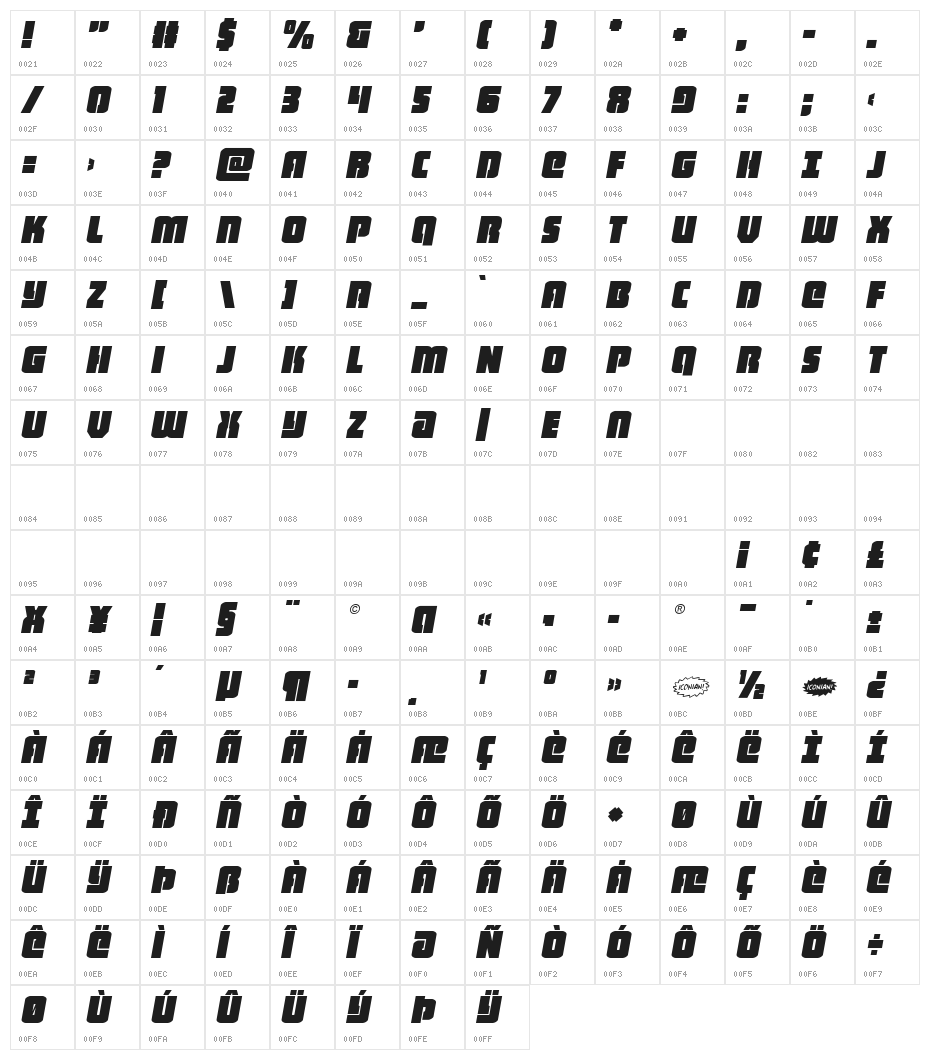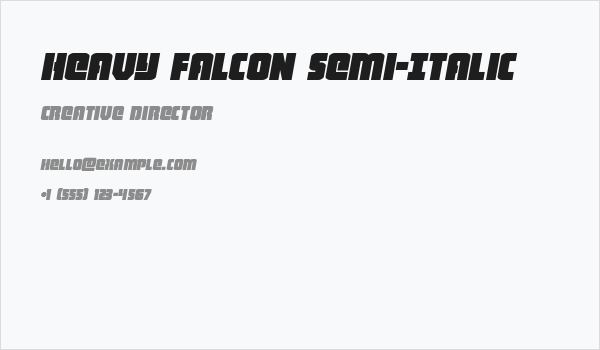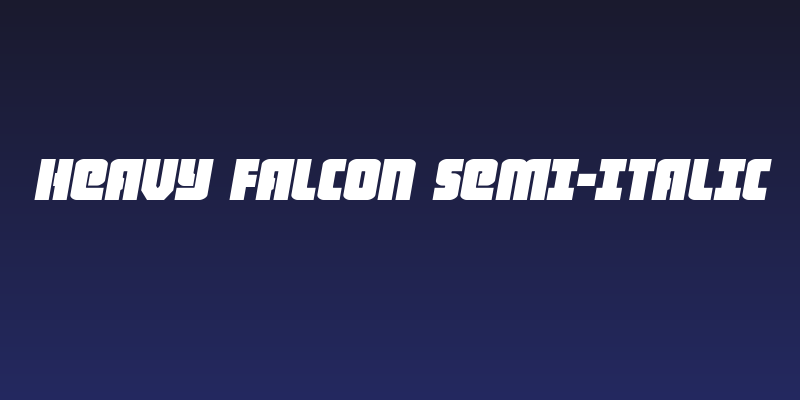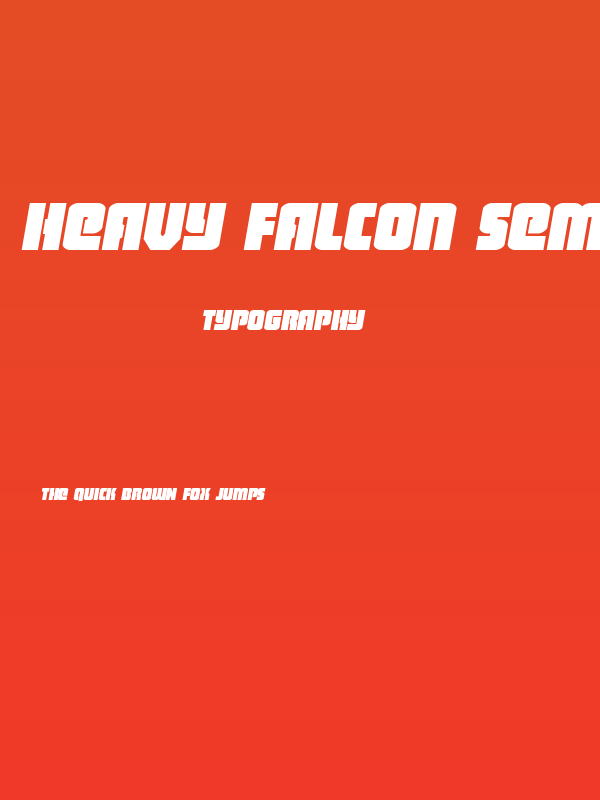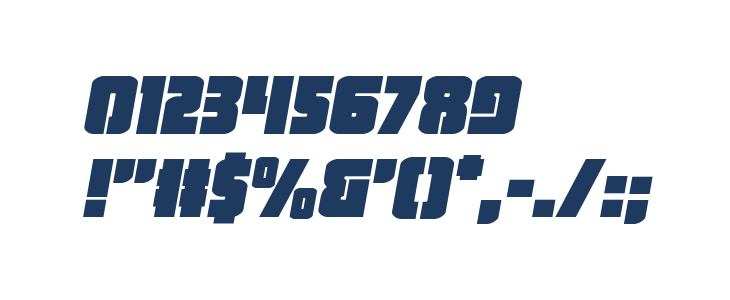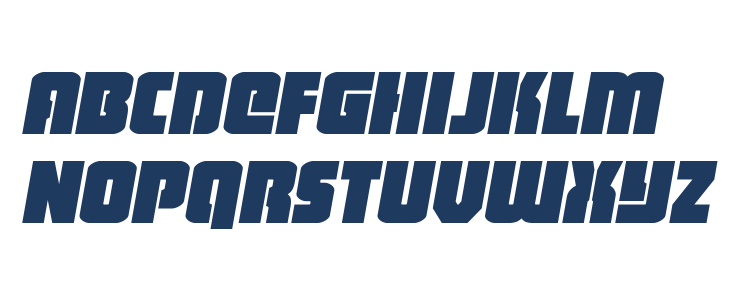
Heavy Falcon Semi-Italic Font
Heavy Falcon Semi-Italic Description
This font features a bold and dynamic design with a semi-italic slant, giving it a sense of movement and energy. The characters are thick and heavy, providing a strong visual impact. The angular cuts and sharp edges add a modern and futuristic feel, making it suitable for attention-grabbing headlines and logos. The uppercase and lowercase letters maintain a consistent style, while the numerals and special characters are designed to match the overall aesthetic. The font's boldness and unique style make it ideal for projects that require a strong and memorable typographic presence.
| Proposed Projects | Ideal for sports branding, action movie posters, video game titles, and dynamic advertising campaigns. |